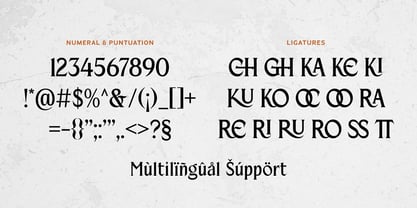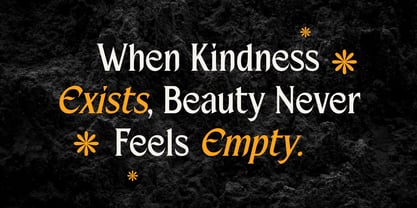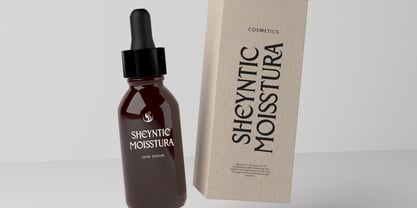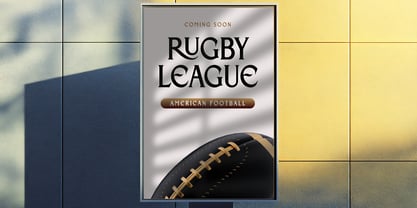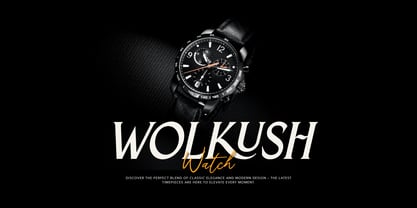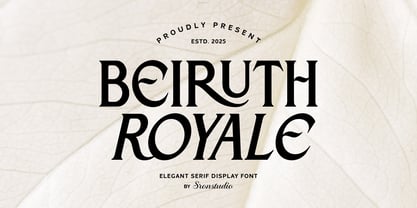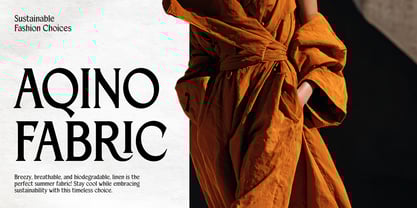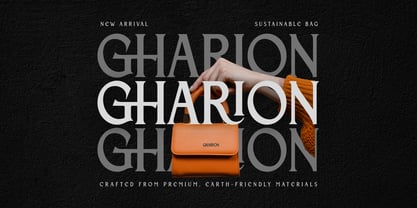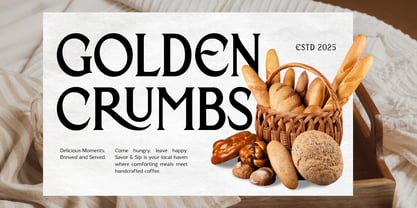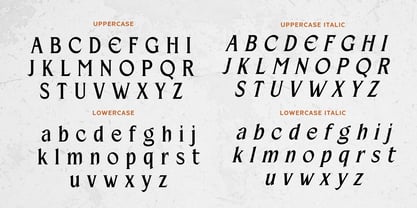
Beiruth
by Sronstudio
The Beiruth Font Family was designed by Muhamad Yusron Billah and published by Sronstudio. Beiruth contains 2 styles and family package options.
Beiruth is a classic serif font that blends timeless elegance with modern refinement. Featuring balanced proportions, clean serifs, and graceful letterforms, this font is perfect for editorial design, branding, book covers, logos, and sophisticated layouts. Beiruth delivers a professional and polished look, making it ideal for projects that require clarity, style, and enduring appeal. What’s Included: - ligatures - Numerals & punctuation - PUA encoded for easy access - Multilingual support - Works seamlessly on Mac & Windows Thank you very much 🙂
Beiruth